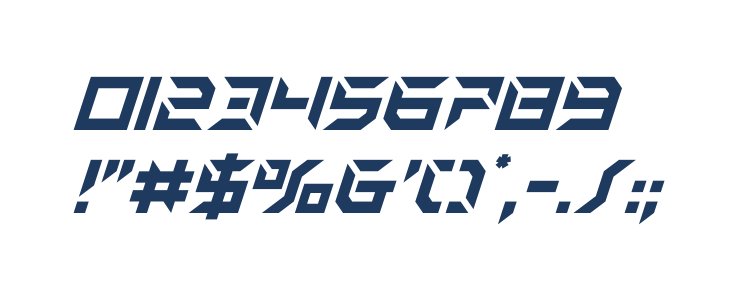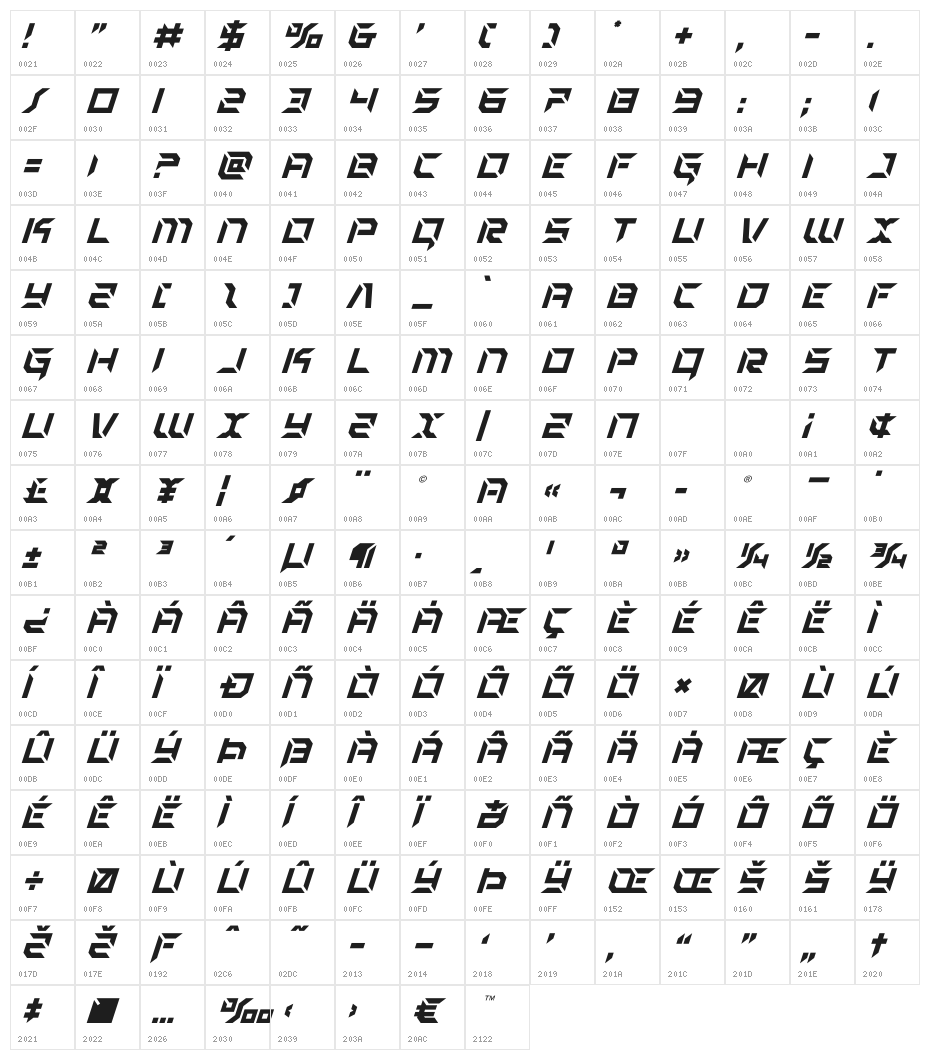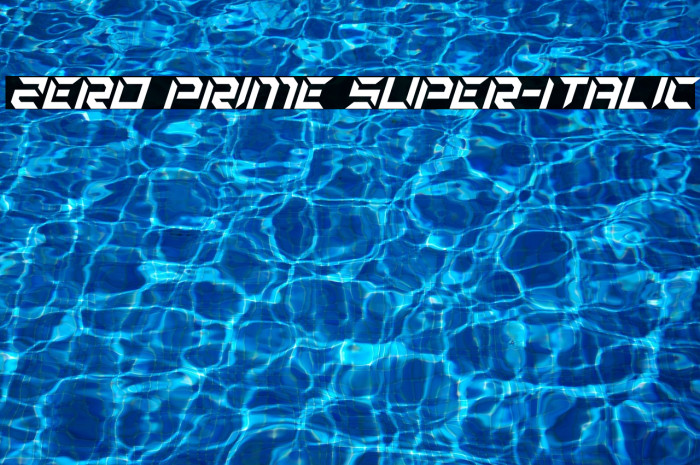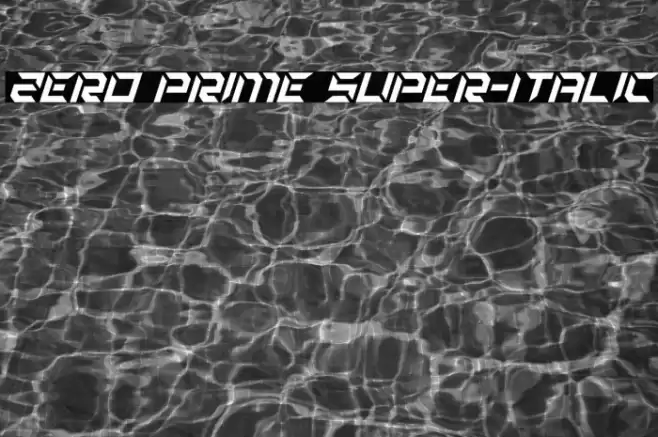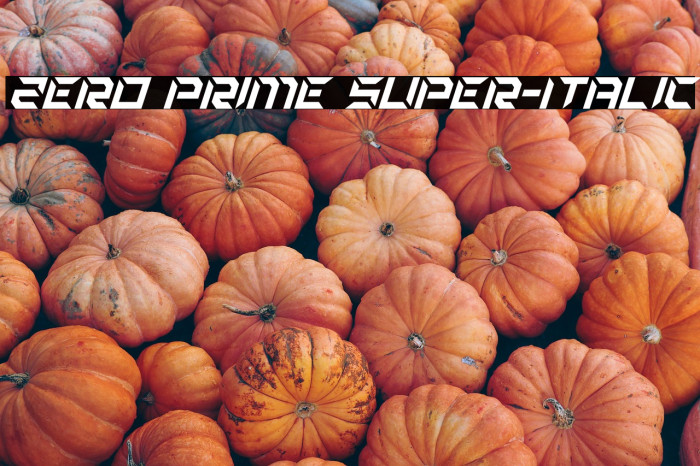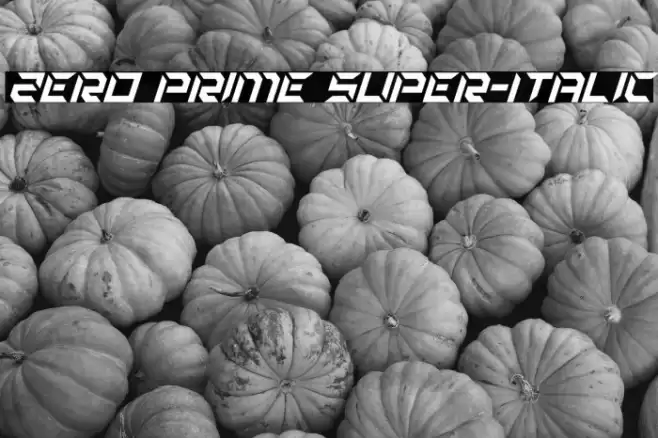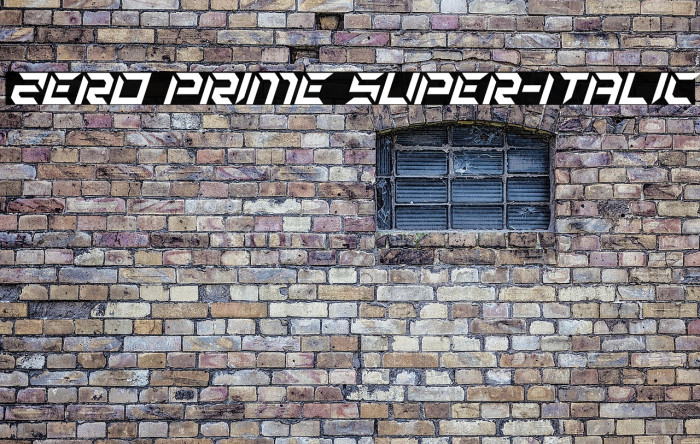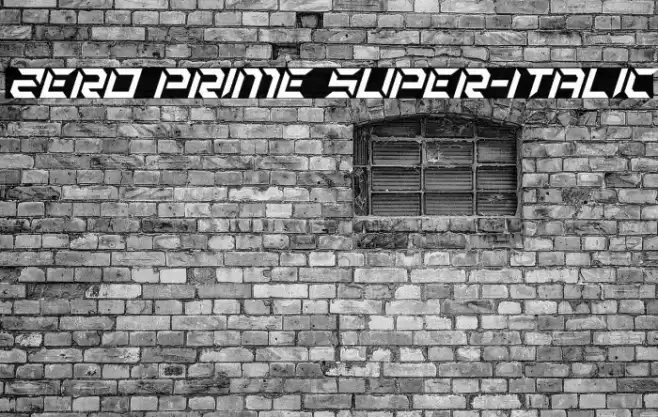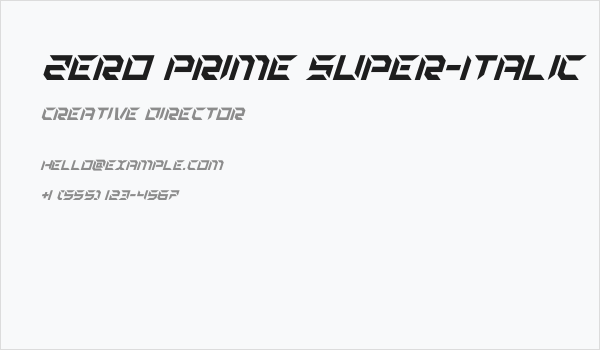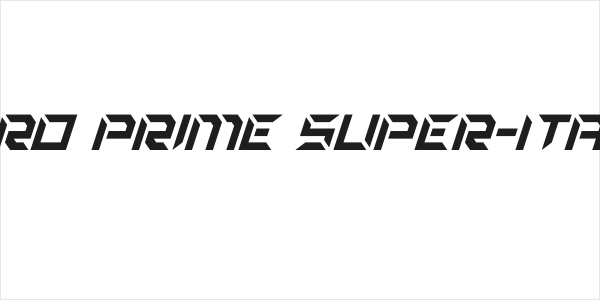
Zero Prime Super-Italic Font
Zero Prime Super-Italic Description
This font features a futuristic and angular design, characterized by sharp edges and a dynamic slant. The uppercase and lowercase letters maintain a consistent style, with a bold presence that emphasizes geometric shapes. Numbers and special characters follow the same angular theme, providing a cohesive look across all glyphs. The italicized nature of the font adds a sense of motion and speed, making it ideal for projects that require a modern and edgy aesthetic. The bold weight and condensed width contribute to its striking appearance, ensuring it stands out in any design context.
| Proposed Projects | Ideal for sci-fi themed designs, video game titles, tech branding, and dynamic posters. |